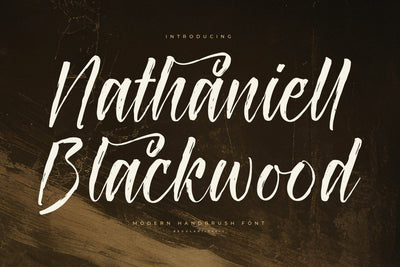
Nathaniell Blackwood - Modern Handbrush Font
Nathaniell Blackwood - Modern Handbrush Font, from Letterena, is a Luxury Script font, suitable for any projects such as: logos, branding projects, homeware designs, product packaging, mugs, quotes, posters, shopping bags, t-shirts, book covers, name card, invitation cards, greeting cards, label, photography, watermark, special events, and all your other luxury and beautiful projects that need a Luxury serif taste.